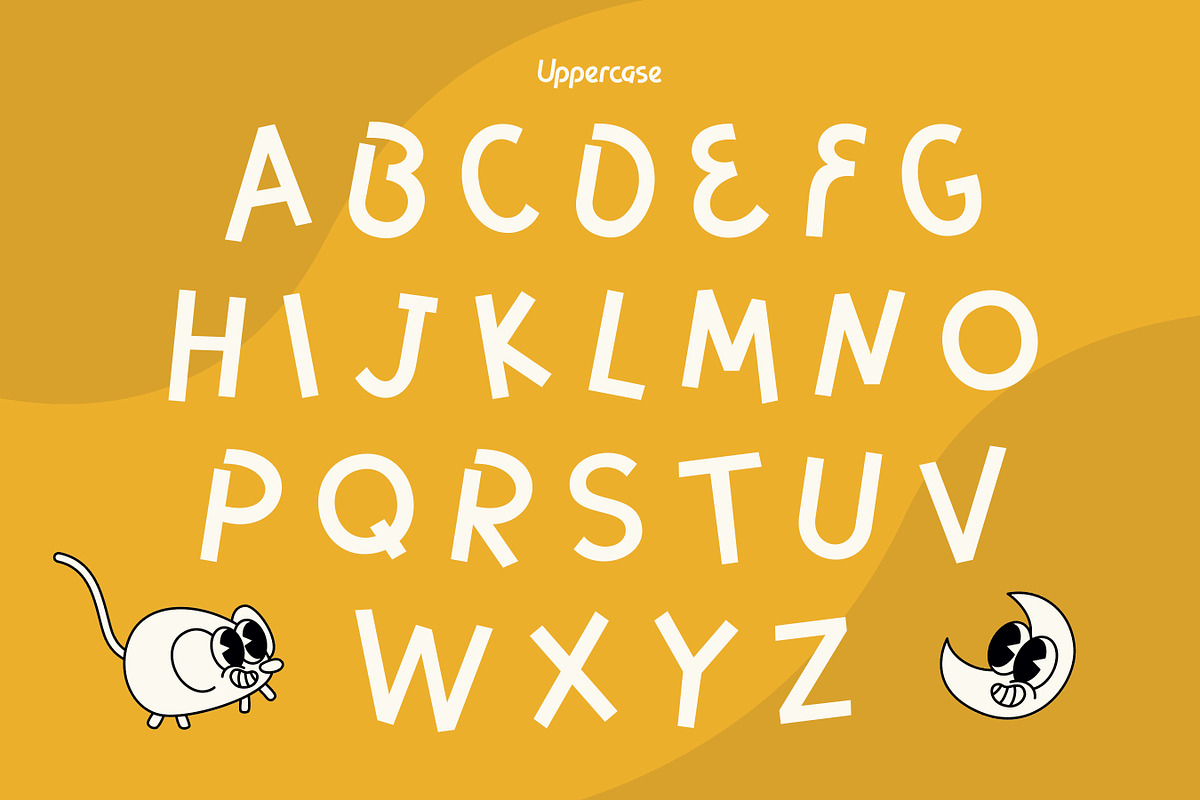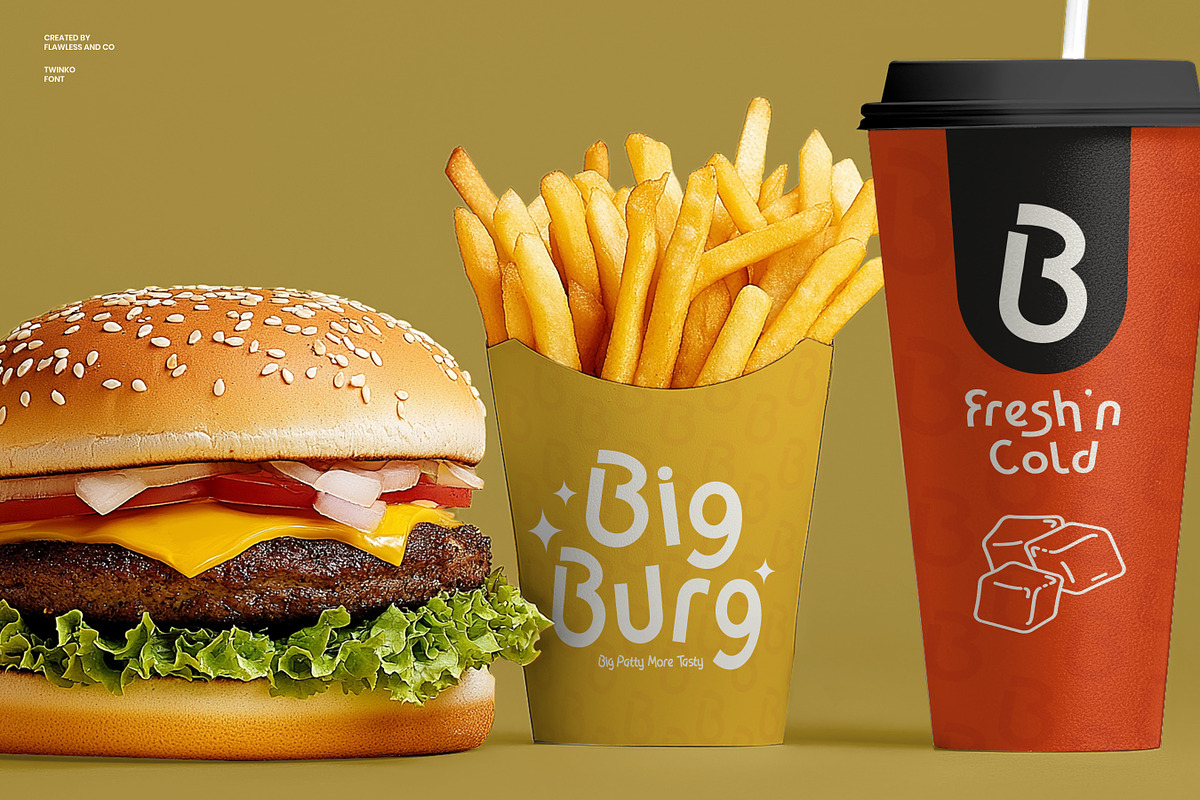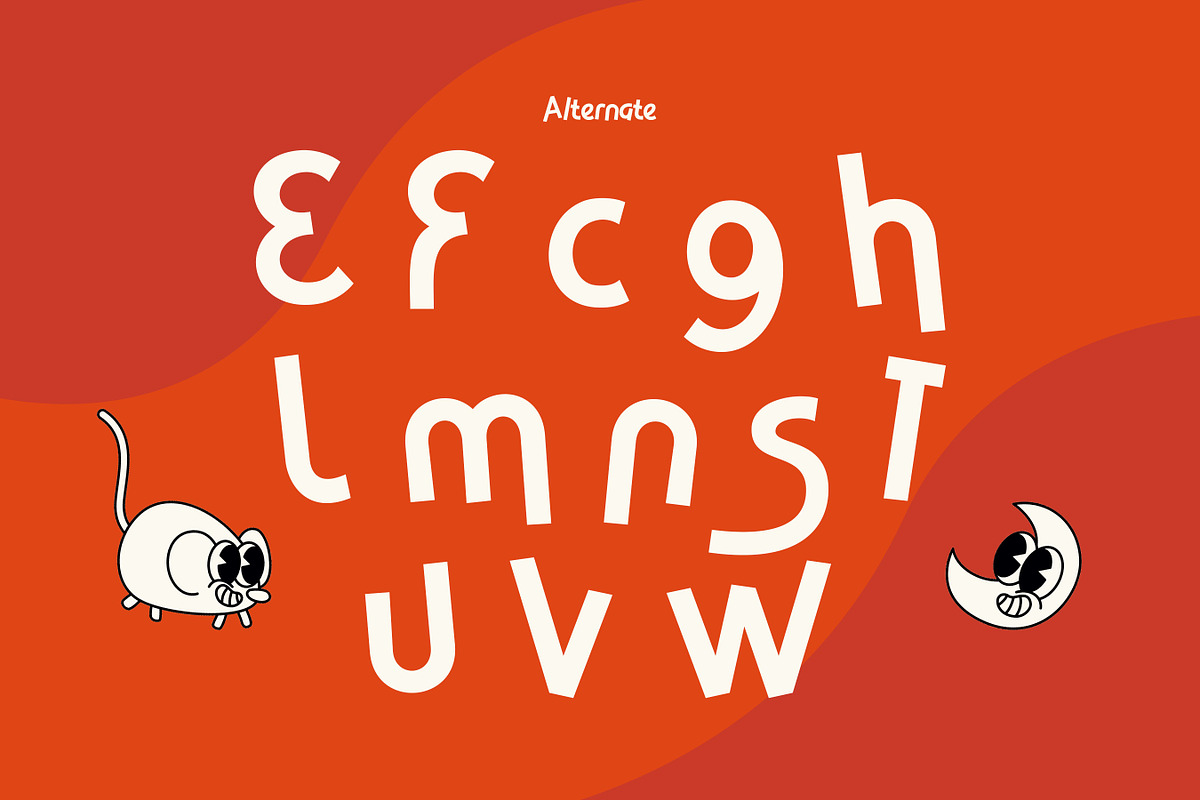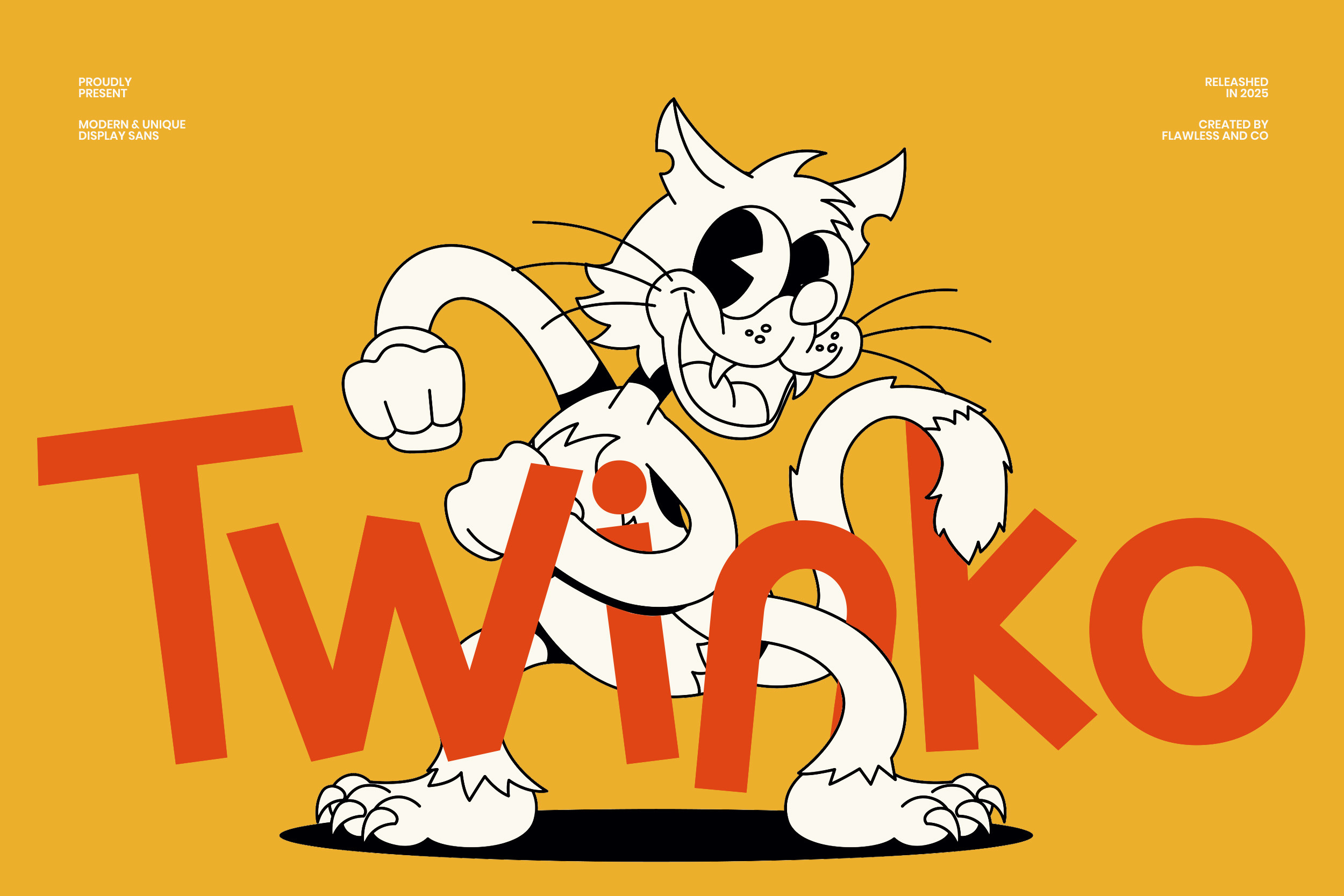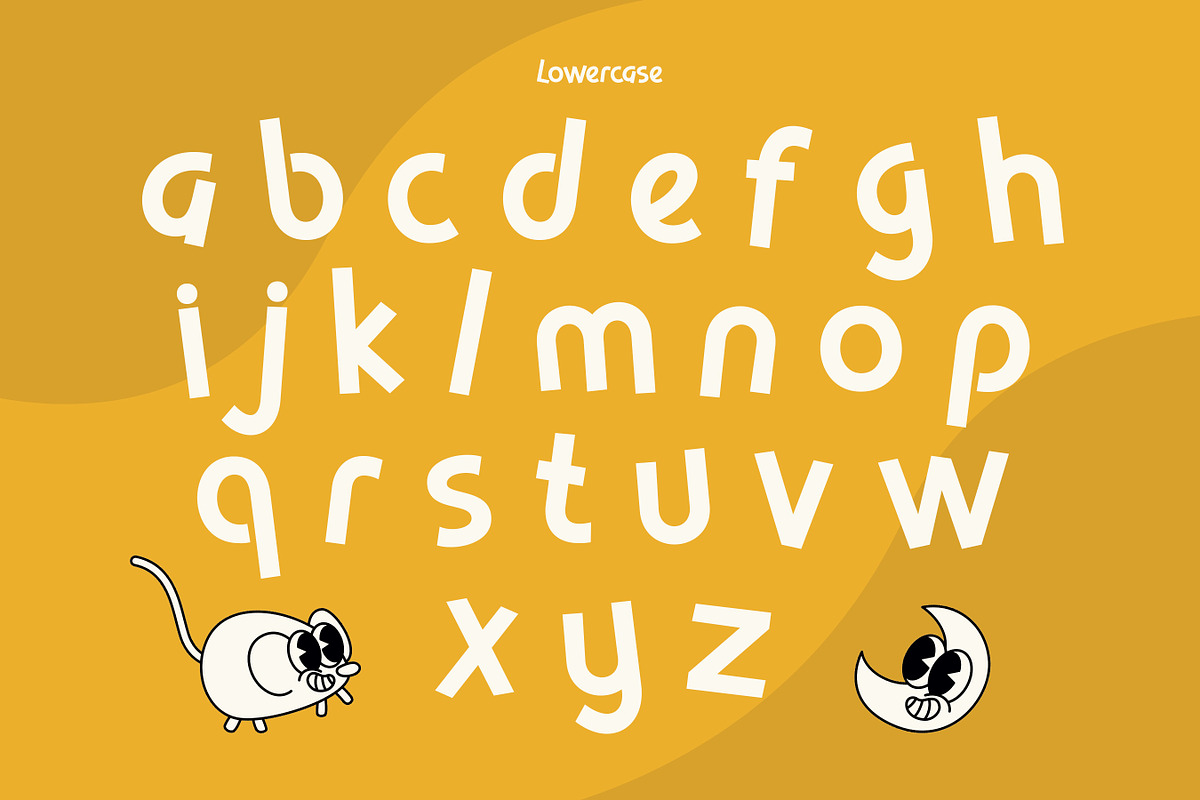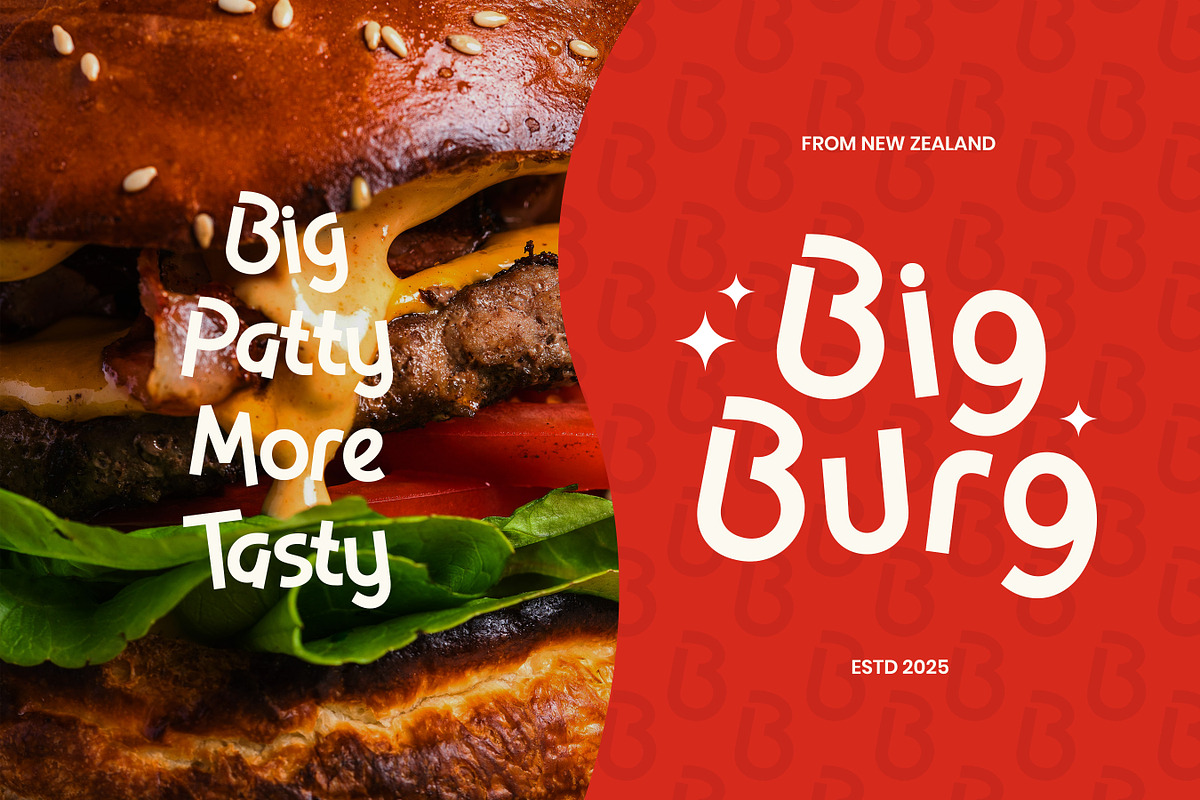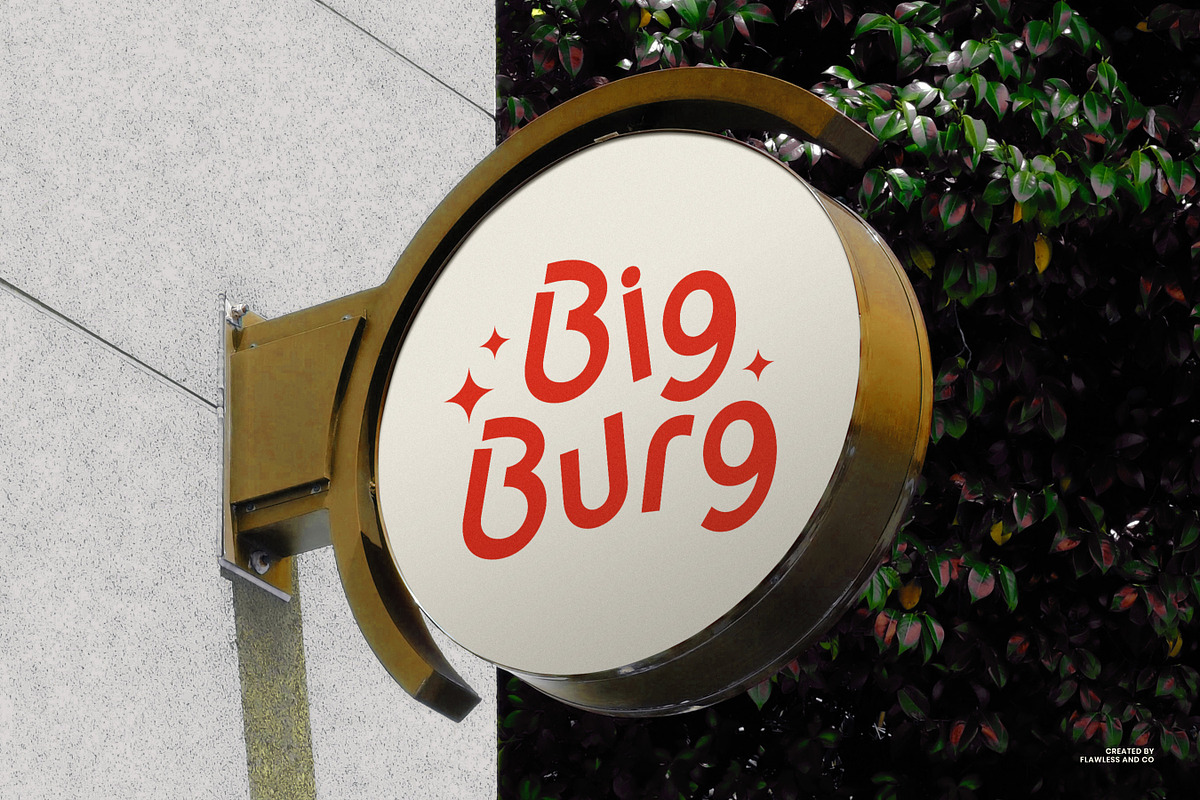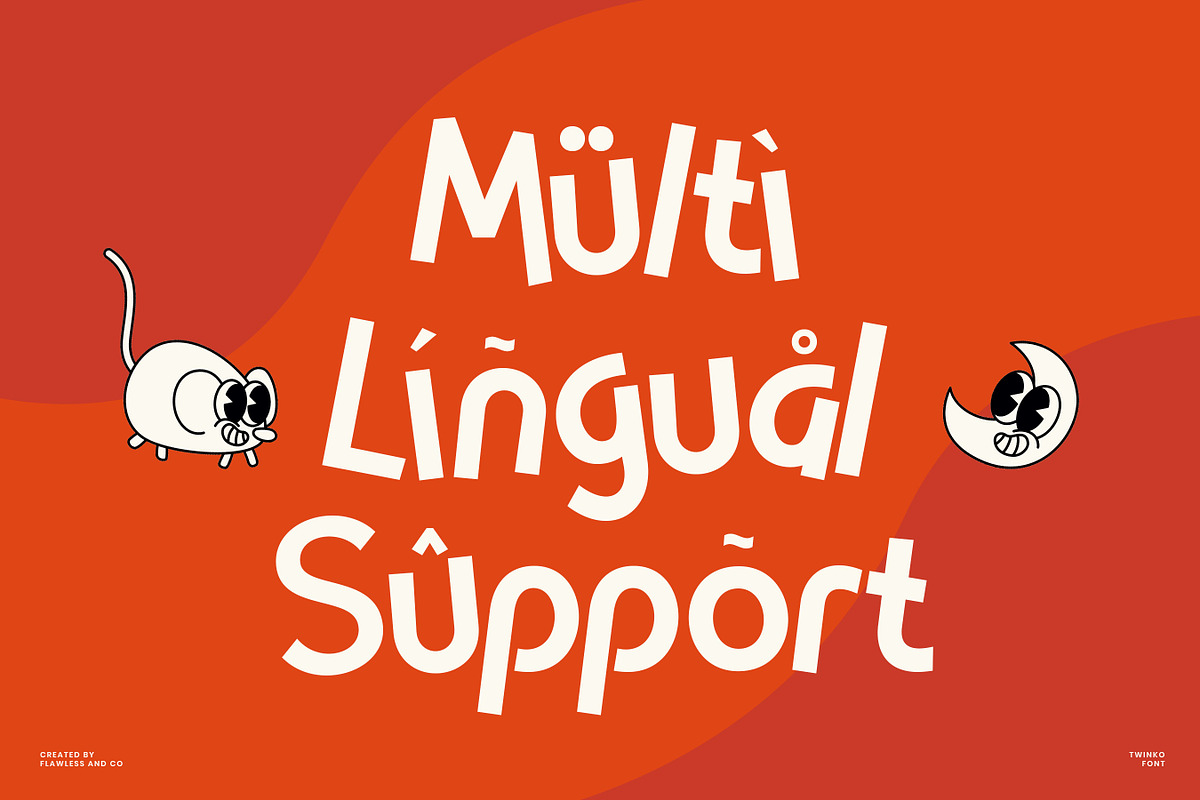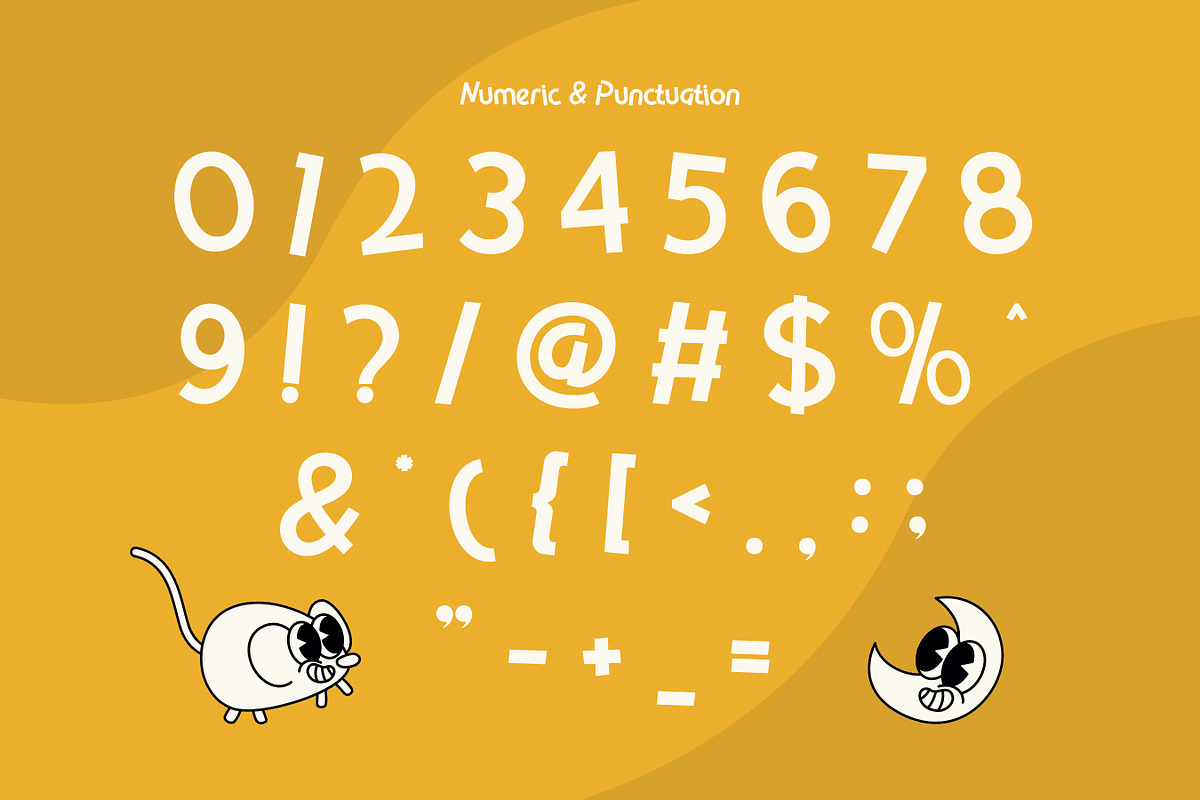
Twinko - Display Sans Serif Font
Twinko - Modern Display Sans Serif Font
Twinko is a modern and unique display sans serif font designed to bring energy, personality, and bold expression to your creative projects. With its chunky shapes, playful proportions, and confident letterforms, Twinko instantly grabs attention and delivers a fun visual impact. Built for standout typography, Twinko works perfectly in large sizes where its character truly shines.
Who Should Use Twinko?
- Brand designers looking to create playful and memorable brand identities
- Logo creators who want strong, eye-catching typography with a modern twist
- Illustrators and creatives working on character-based or cartoon-style designs
- Poster and flyer designers needing bold headlines that stand out instantly
- Merchandise designers for apparel, stickers, and packaging with a fun vibe
- Content creators & social media designers who want energetic and engaging visuals
A Must-Have Font for Brand and Logo Creators and Designers
Twinko is a must-have typeface for brand and logo creators who want to deliver bold, fun, and highly distinctive visuals. Its playful display sans serif style brings instant character and strong visual impact, making any design feel more memorable and engaging. Designed to stand out at first glance, Twinko works perfectly for logos, brand marks, packaging, posters, and creative campaigns that require a modern yet expressive look.
Why Choose Twinko for Brand and Logo Projects?
- Bold and playful look that grabs attention instantly
- Perfect for eye-catching logos and brand identities
- Modern display sans serif with a fun personality
- Easy to read while still being unique
- Versatile for branding, packaging, posters, and social media
Suitable For
- Logo and brand identity
- Packaging design
- Posters and flyers
- Social media graphics
- Advertising and marketing materials
- Kids brands and playful products
- Merchandise and apparel design
- Website headers and creative titles